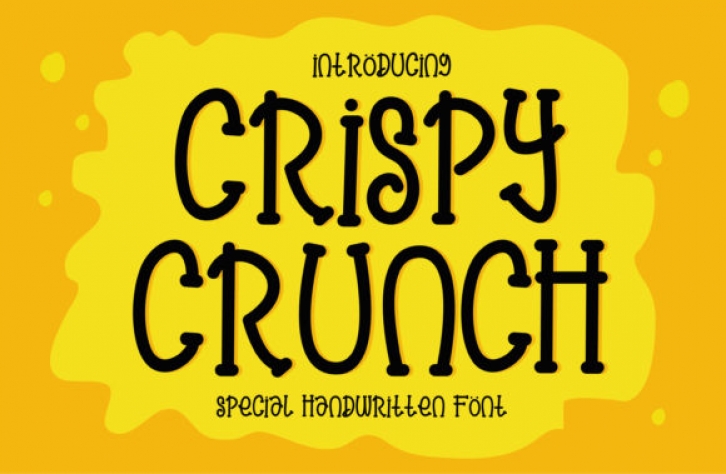
Crispy Crunch is a cheerful, quirky and neat display font. Whether you are using it for cartoon-related designs, children’s games, quotes, titles, brand names, book covers, posters, or just any creation that requires a touch of beauty, this font is a great choice.